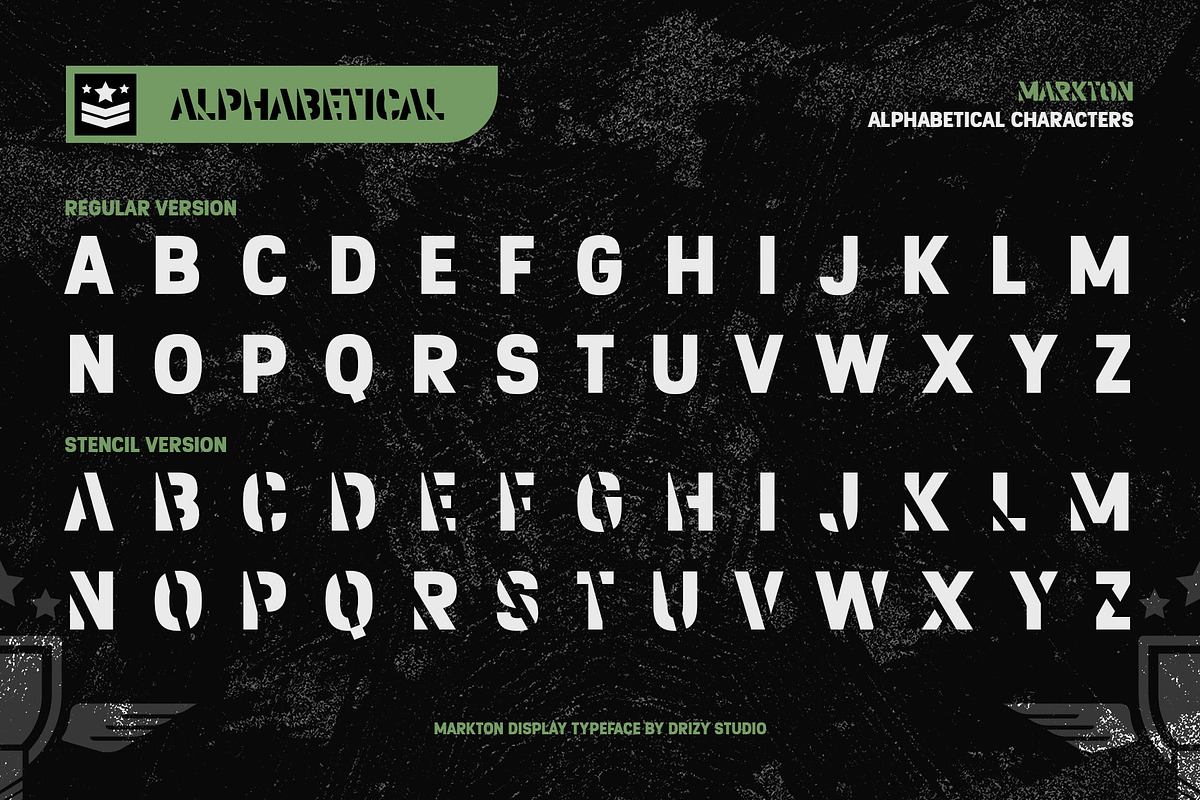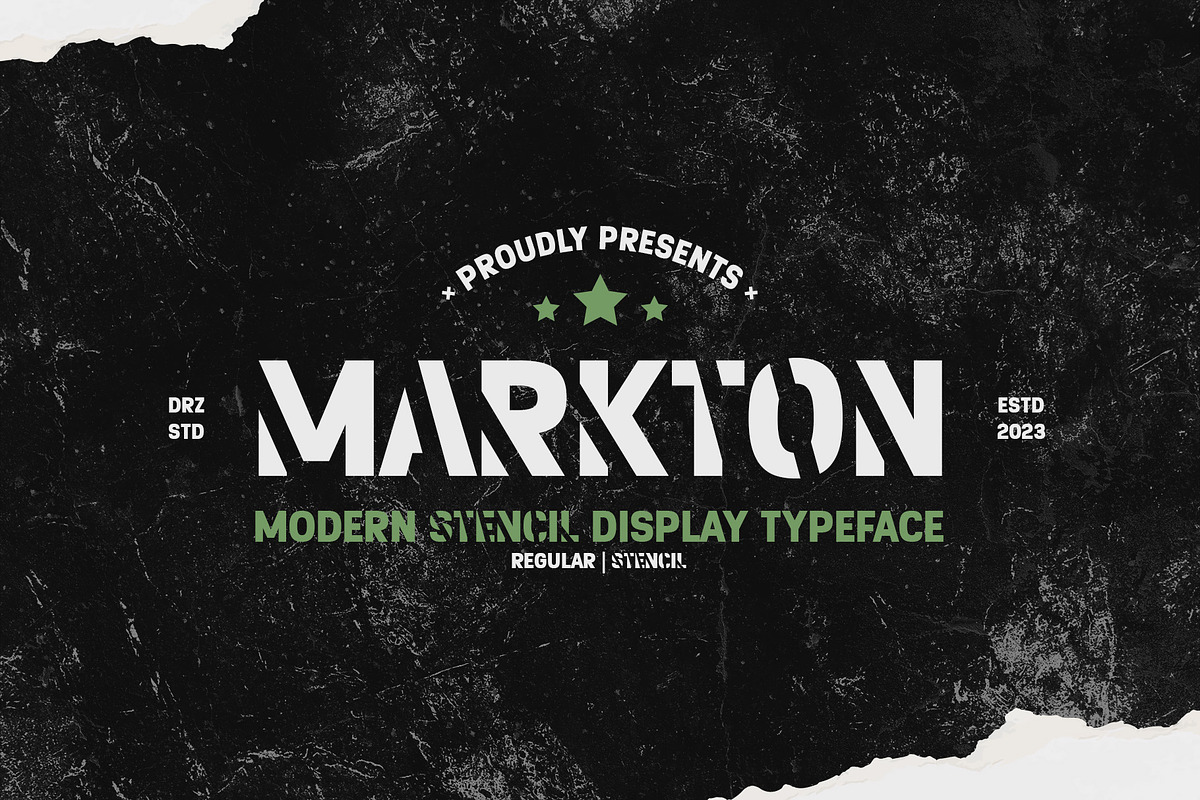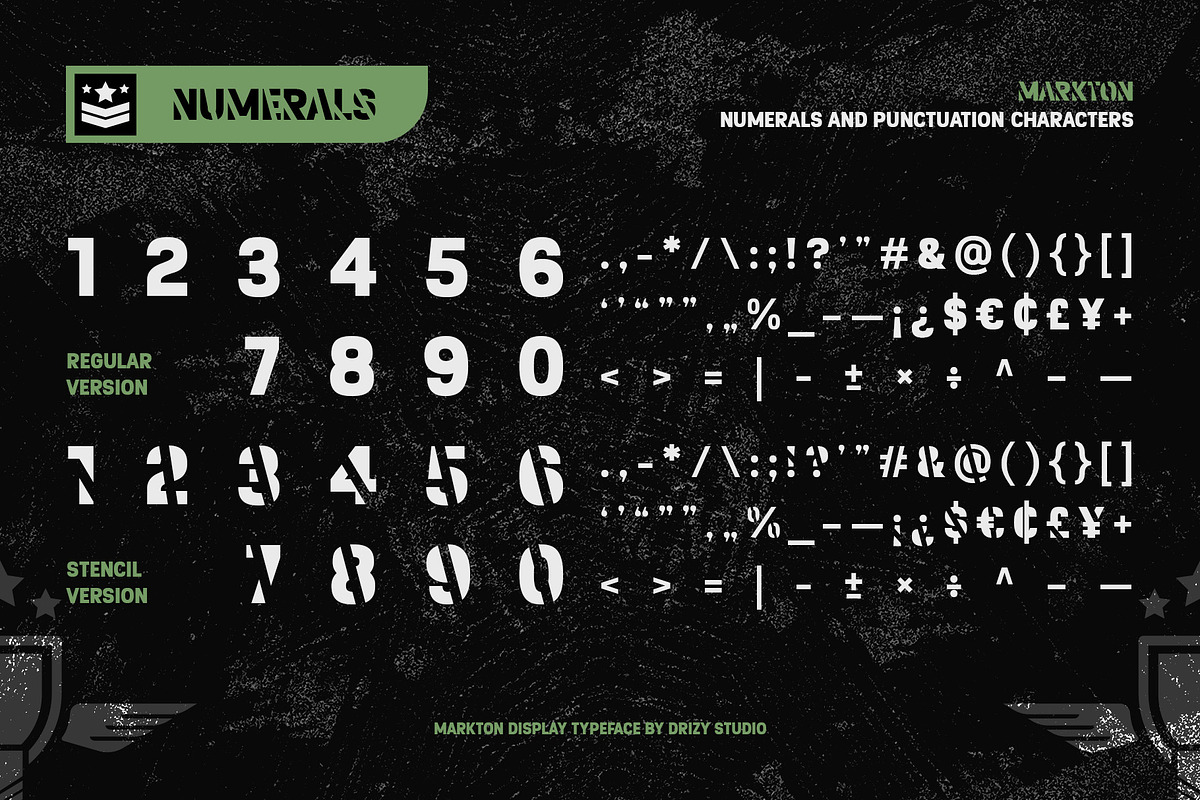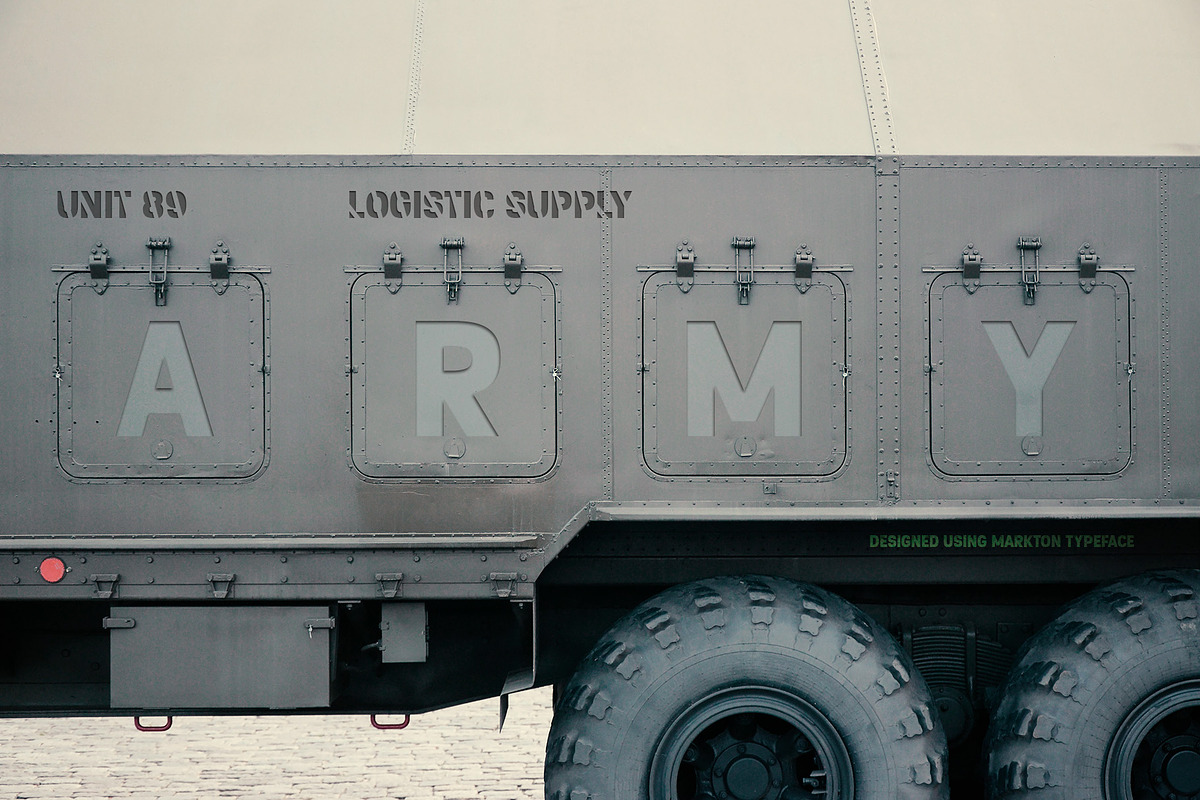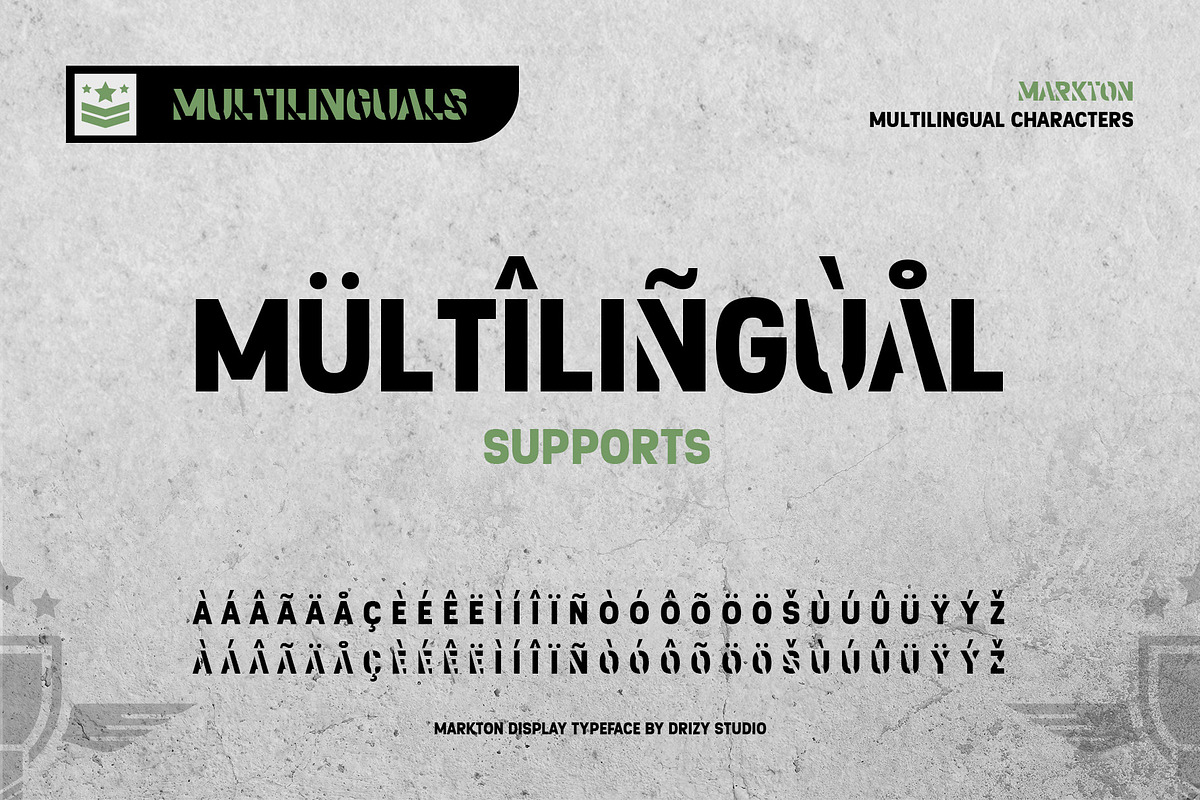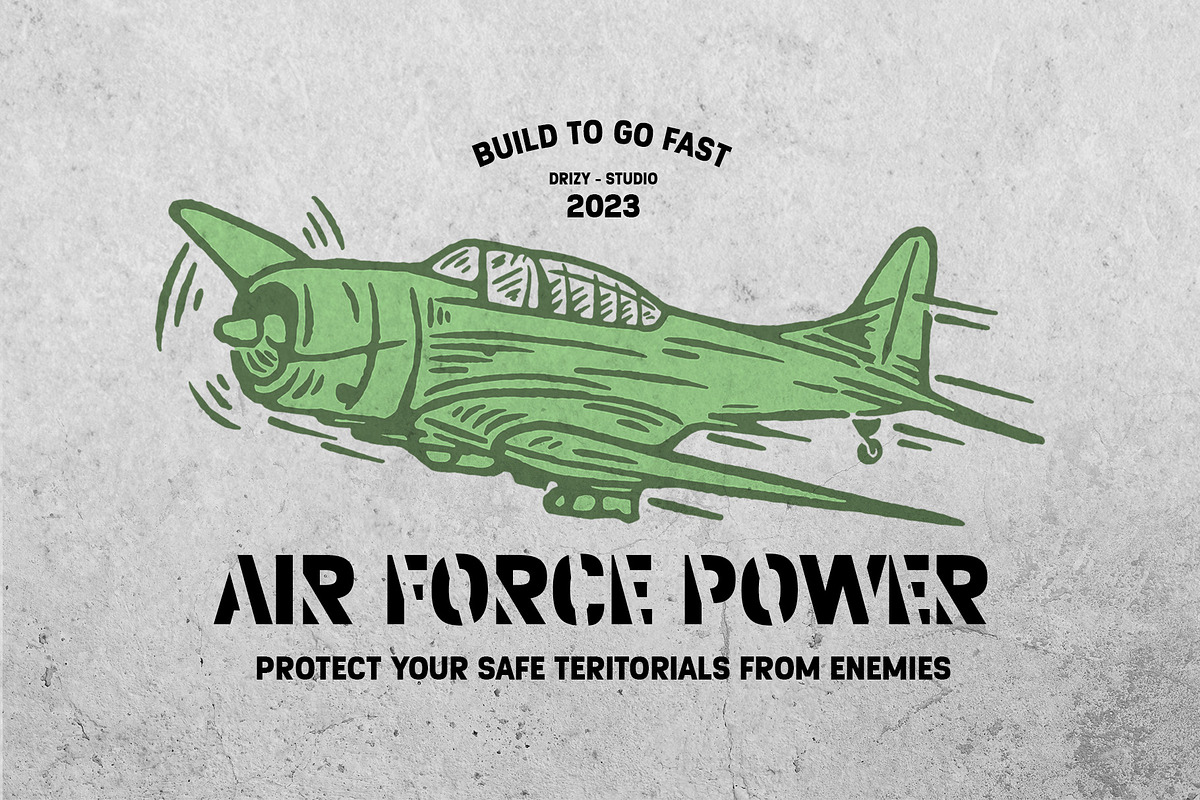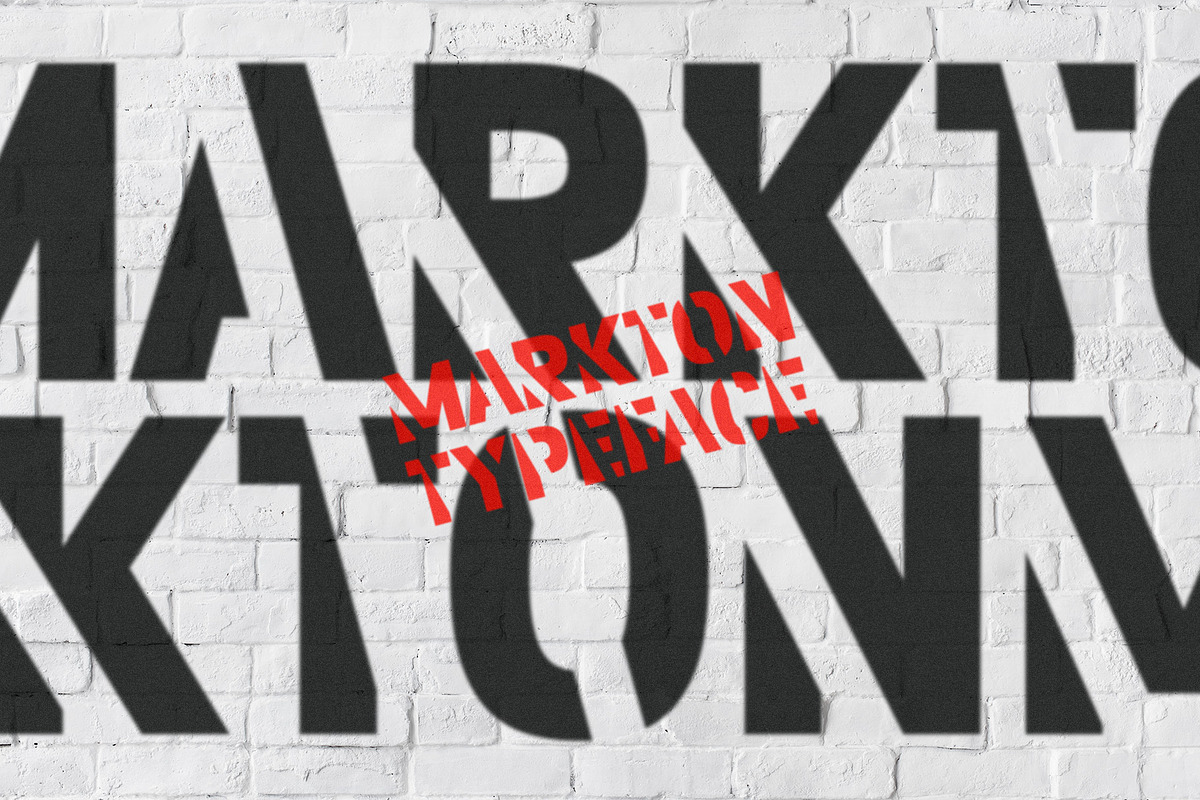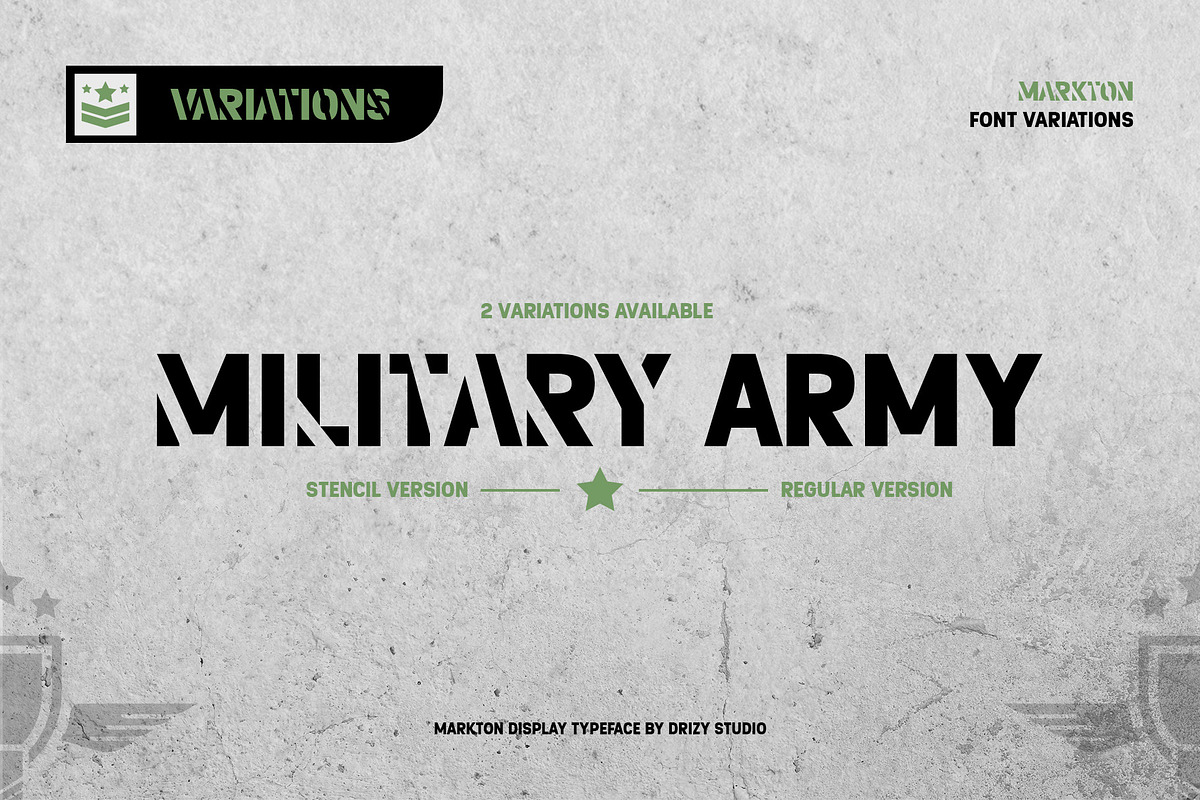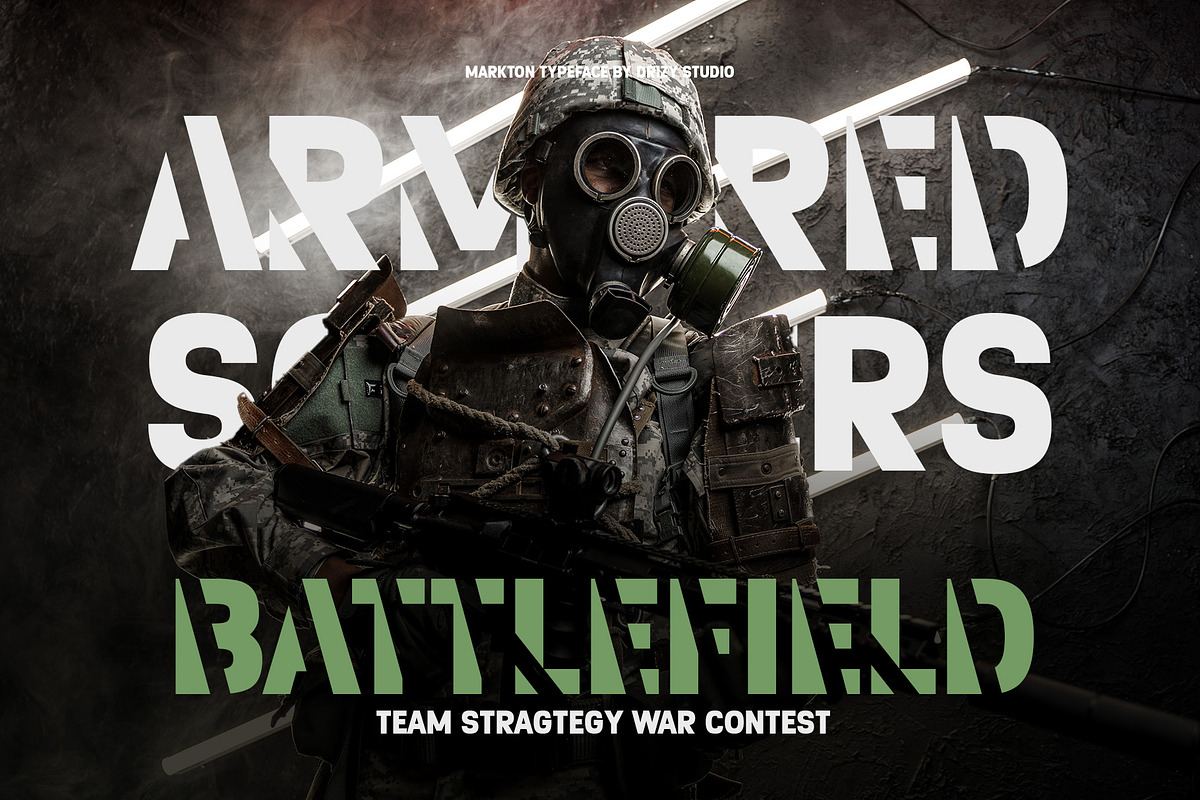
Markton – Modern Stencil Typeface
Markton is a captivating and contemporary stencil typeface that seamlessly blends elements of modern design with a classic stencil aesthetic. This typeface exudes a perfect balance between sleek, minimalistic lines and a distinctive, industrial charm.
Markton features: Character Set Variable: Stencil & Regular Punctuation & Numbers Multilingual Support Elevate and explore the design possibilities with this military font!